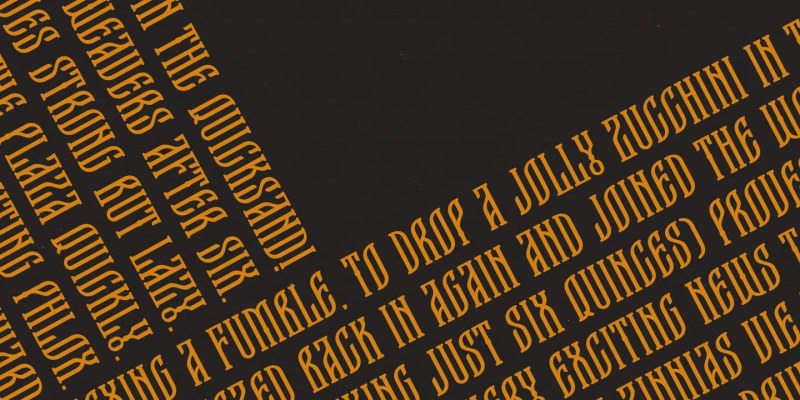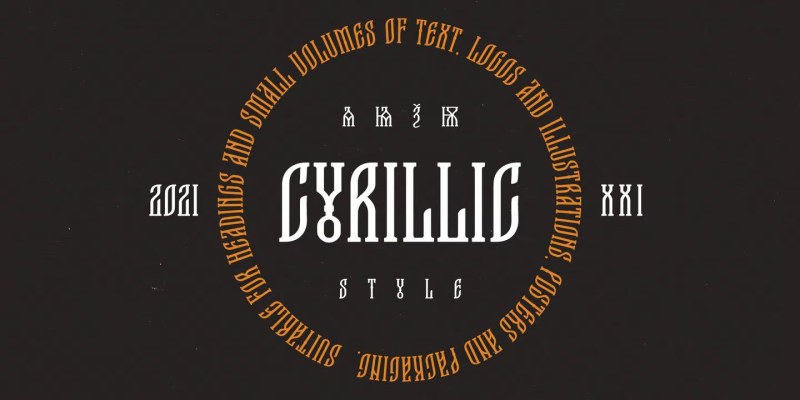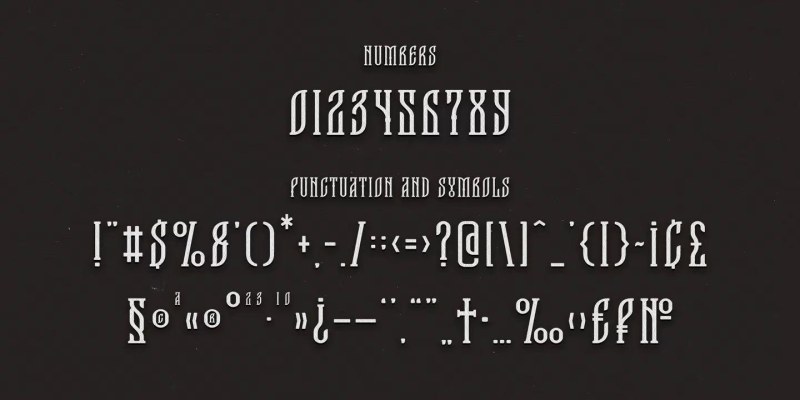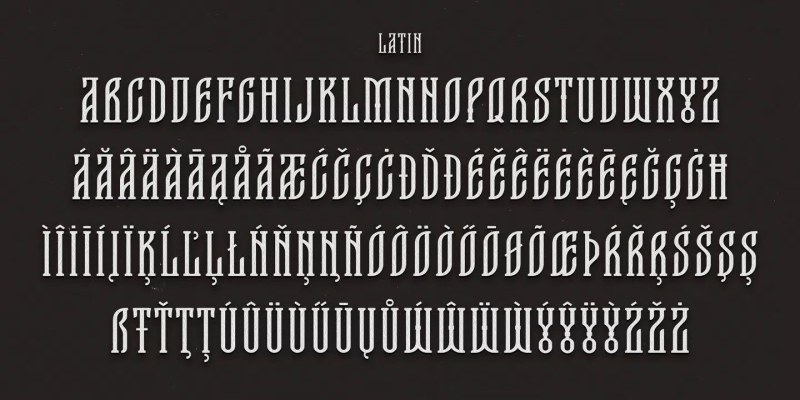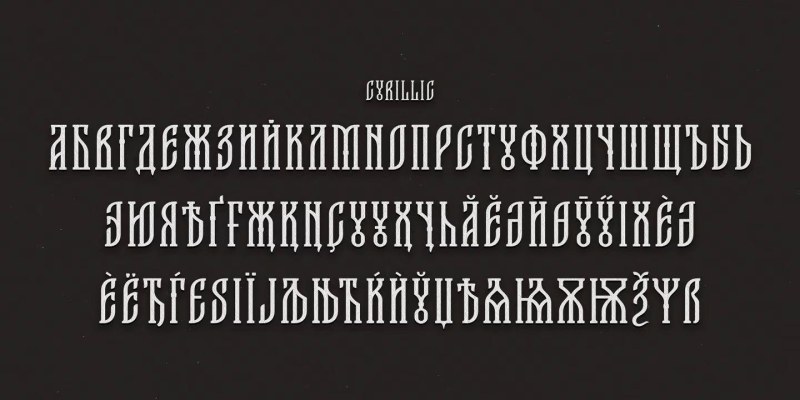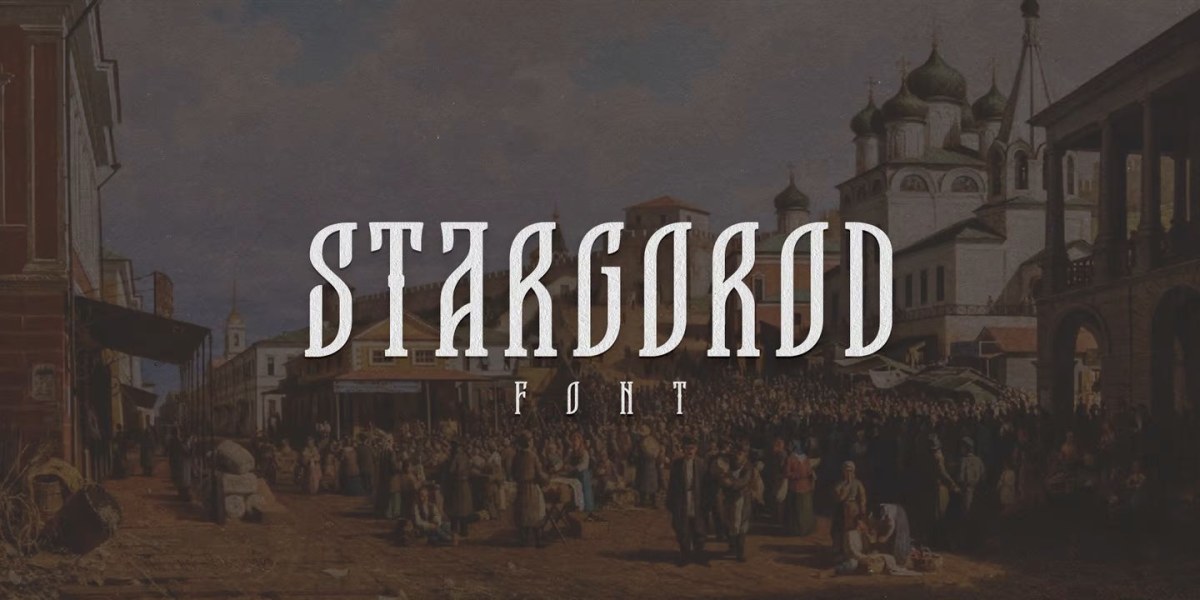
TD Stargorod Font
Font TD Stargorod. Supports: Cyrillic, Latin, Extended Cyrillic. Suitable for small volumes of text, titles, logos, illustrations, posters, packaging…
TD Stargorod Font is a Display Fonts font that brings a professional and versatile look to your projects. Font TD Stargorod. Supports: Cyrillic, Latin, Extended Cyrillic.